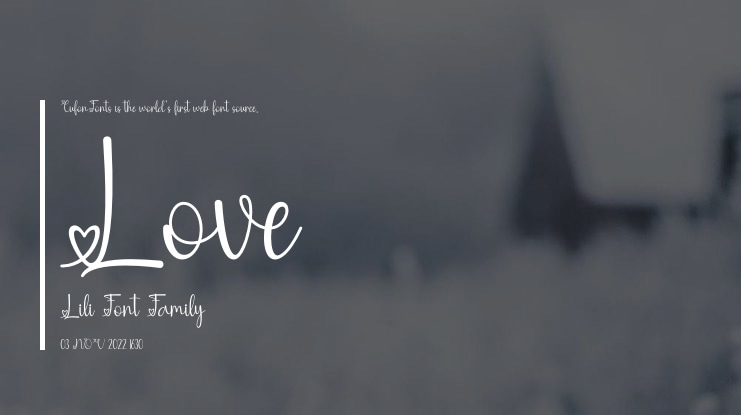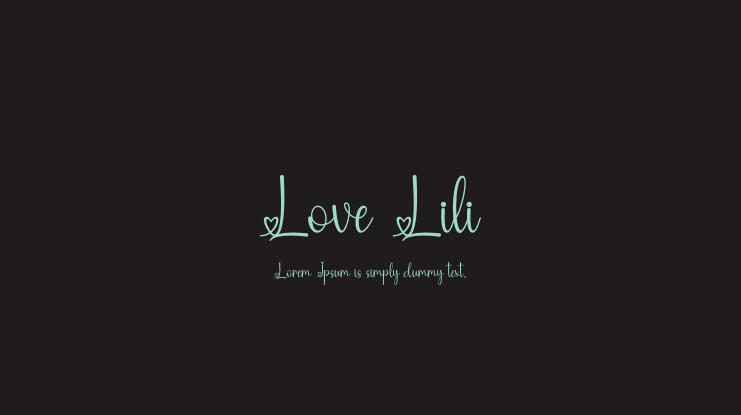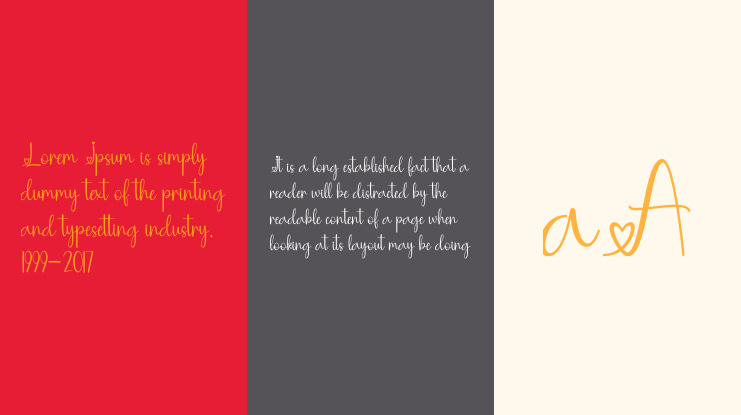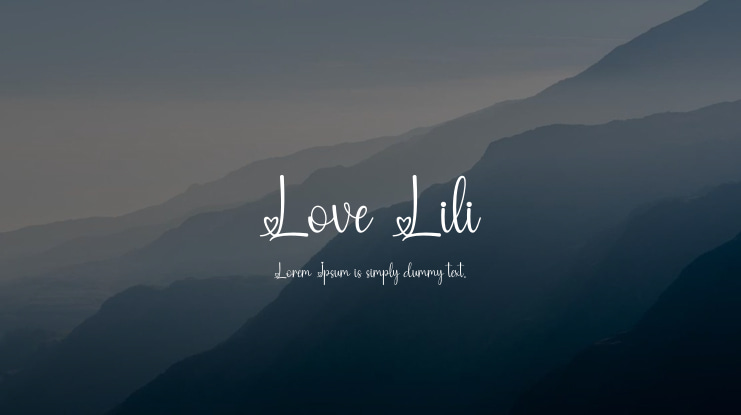
Love Lili Font
Love Lili is a font that exudes both charm and elegance, making it a perfect choice for a variety of design projects. Whether you're working on wedding invitations, thank you cards, quotes, greeting cards, logos, business cards, or any design that calls for a handwritten touch, Love Lili will add a lovely flair. This font is PUA encoded, allowing you to access all the glyphs and swashes effortlessly. It boasts a varying baseline, smooth lines, gorgeous glyphs, and stunning alternates.